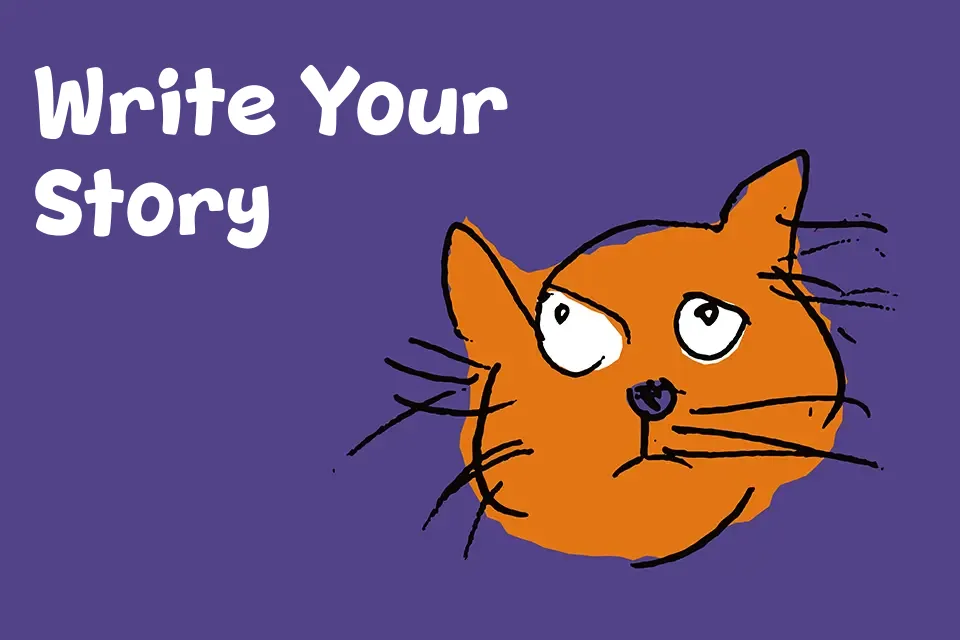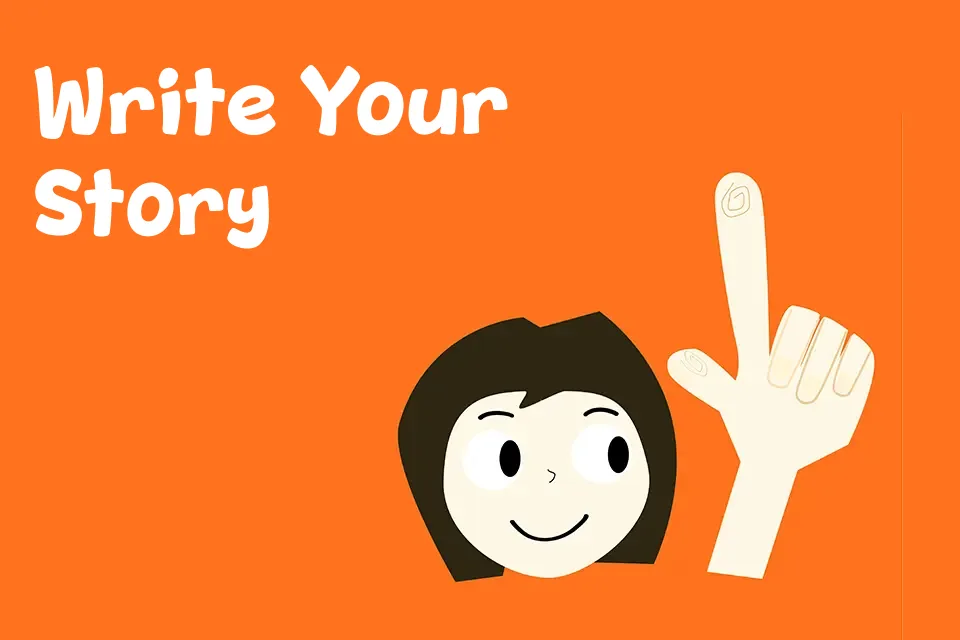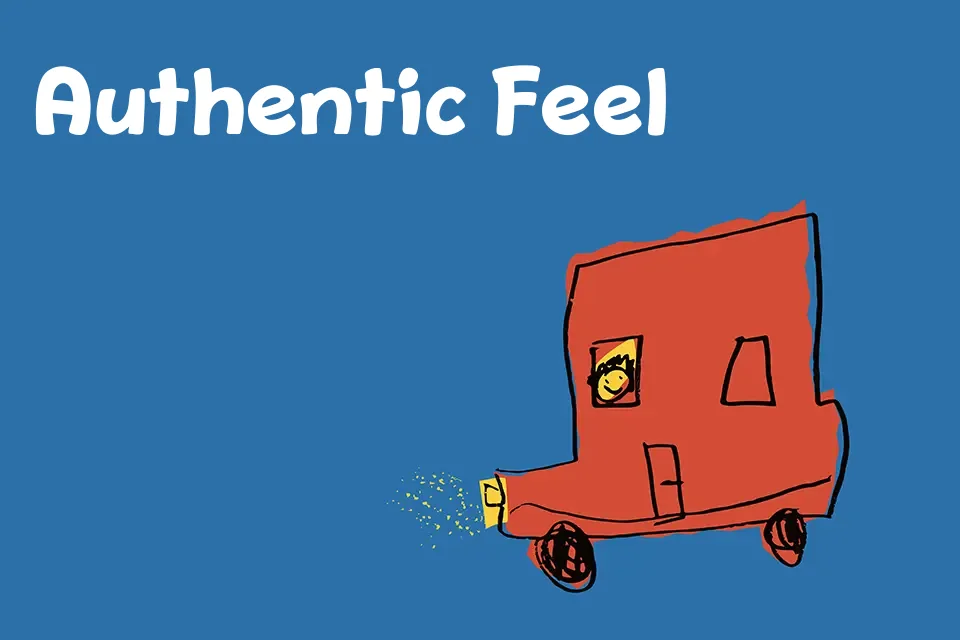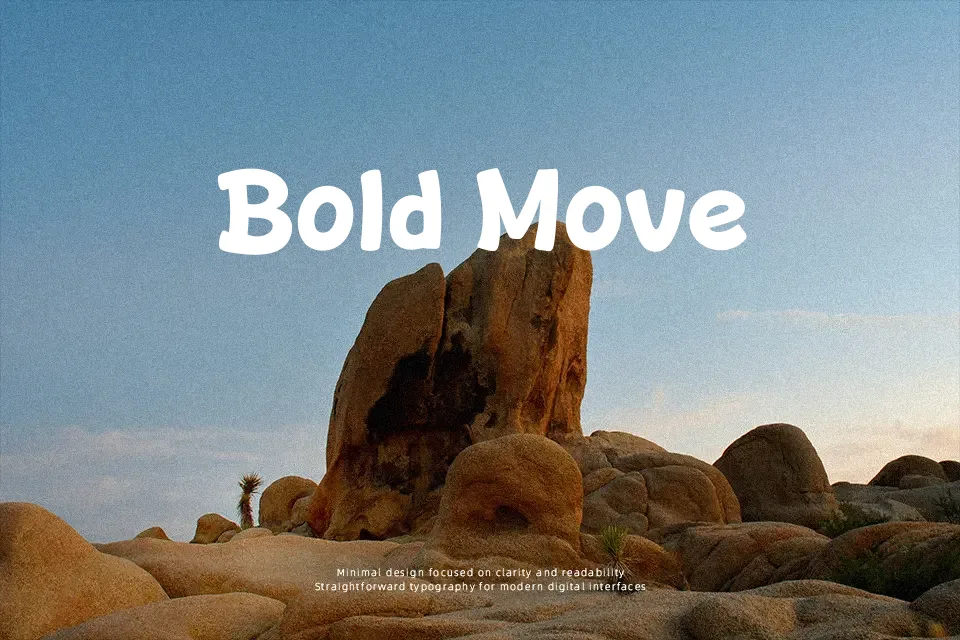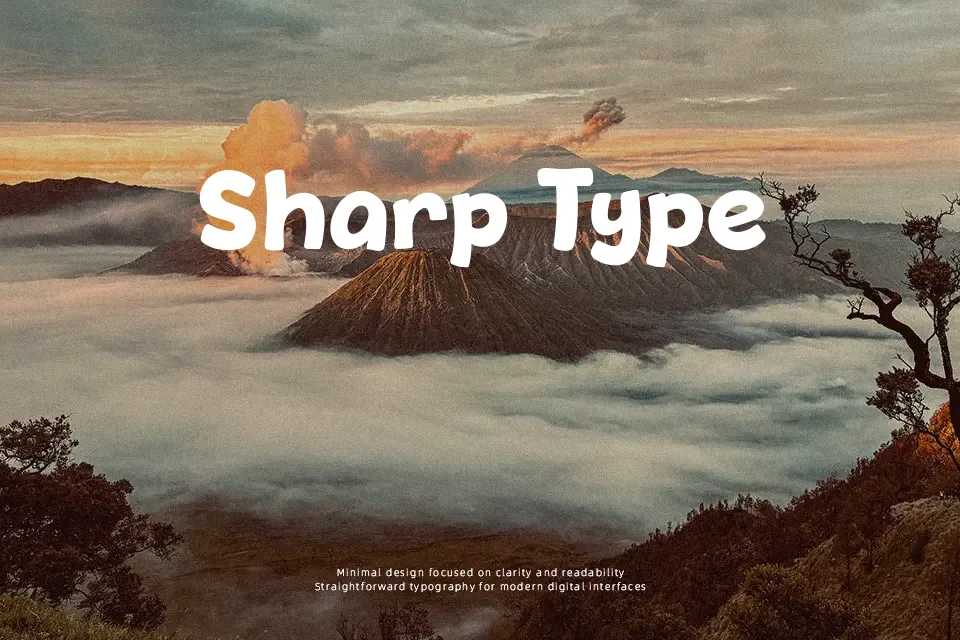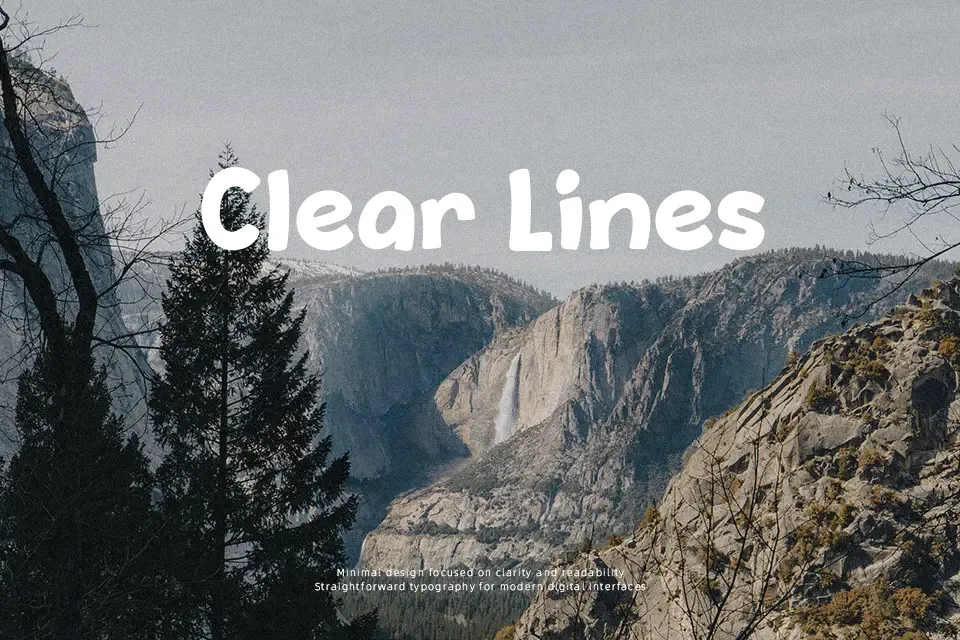
Rencana Font
Rencana Font delivers a fun and energetic aesthetic with its chunky, rounded letterforms and casual baseline. The thick strokes and tight spacing create a dense, highly visible texture that instantly grabs attention in large headers. Its playful rhythm and soft terminals make the design feel approachable, performing beautifully on toy packaging, comic book covers, and vibrant event posters. The heavy weight helps maintain strong clarity in bold display settings, allowing titles to pop against complex backgrounds. However, these dense forms reduce comfort during extended reading, meaning the typeface is poorly suited for dense paragraphs or small interface menus where legibility drops significantly.
children’s book covers
animated video titles
toy packaging
comic book lettering
extended paragraph text
small interface menus